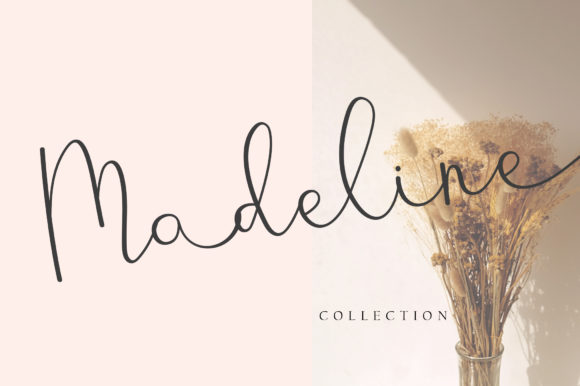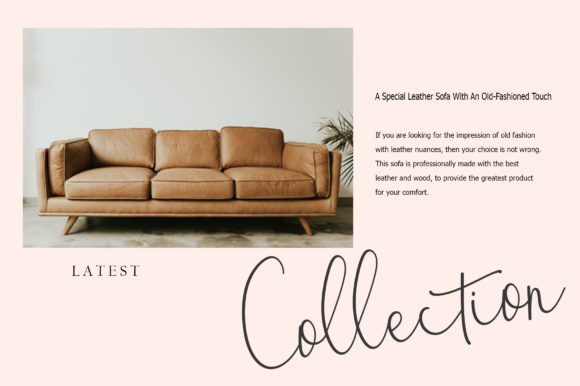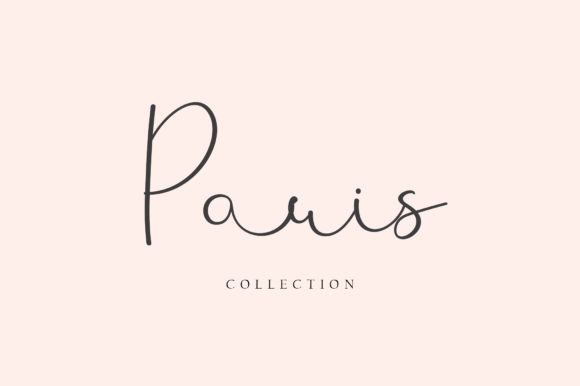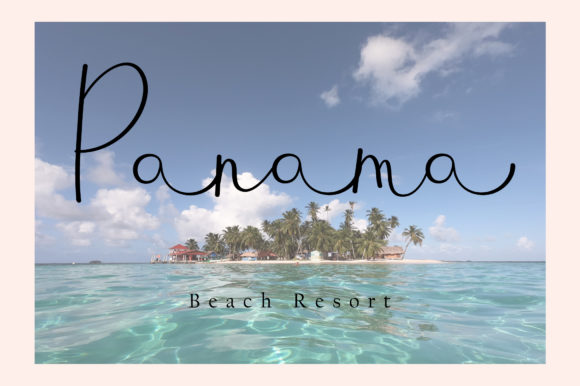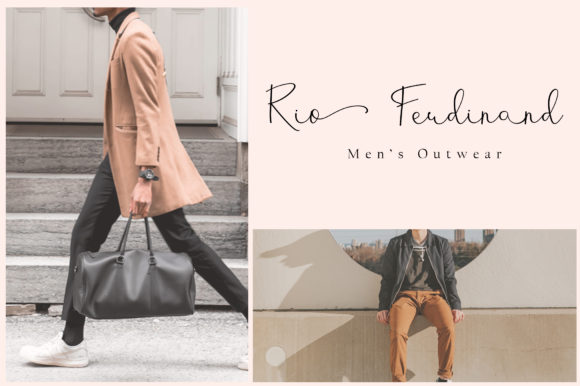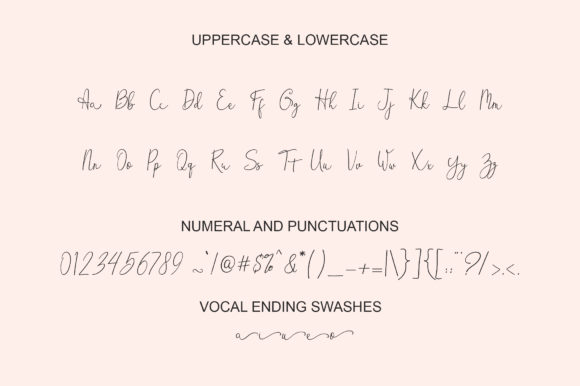
About Catterine Font
Catterine is a delicate and elegant handwritten font. Its distinct and well balanced letters make this font a masterpiece. Fall in love with its incredibly versatile style and use it to create spectacular designs!